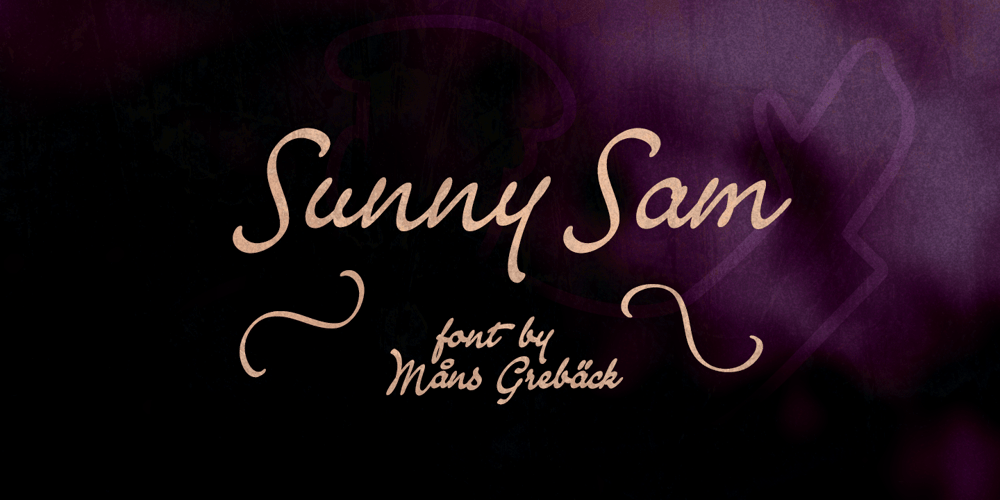
Sunny Sam Font Family was designed by Måns Grebäck and published by Mans Greback. Sunny Sam contains 3 styles and family package options. Sunny Sam is a fun handwritten typeface. It was drawn and created by Måns Grebäck during 2019 and 2020.The movements of this happy script font represents optimism and vivacity. Sunny Sam comes in three high-quality styles: Thin, Medium and Bold. The three weights works great as complements to one another. It has an extensive lingual support, covering European Latin scripts. Sunny Sam contains all characters you’ll ever need, including all punctuation and numbers.